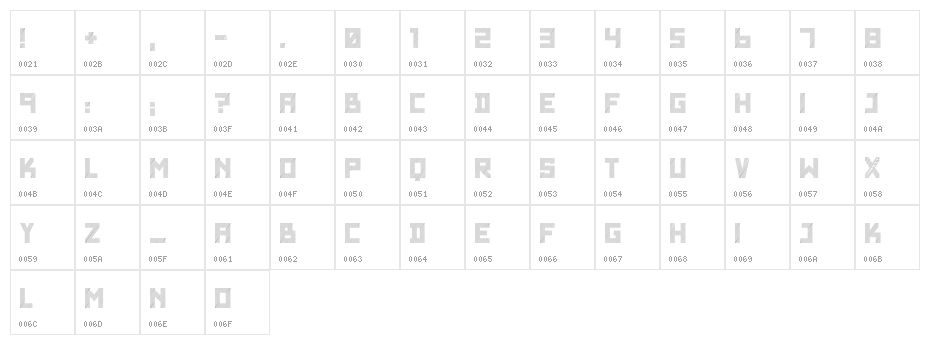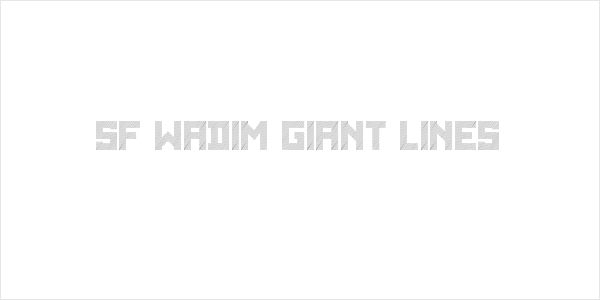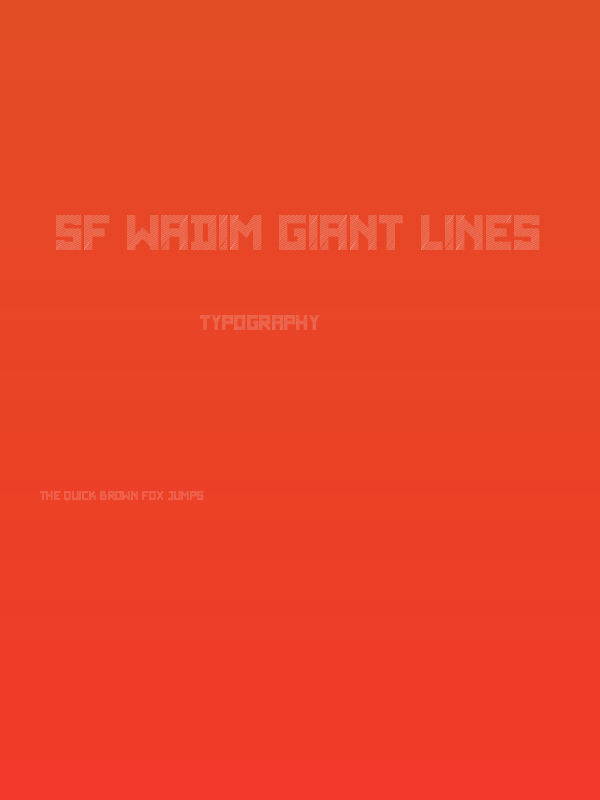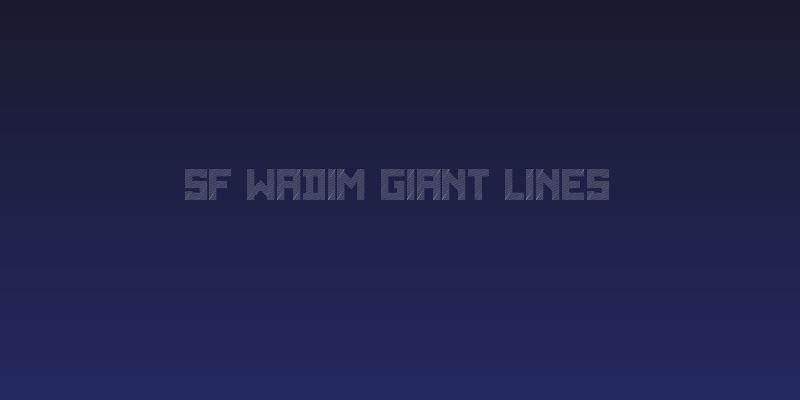
SF WADIM GIANT LINES Font
SF WADIM GIANT LINES Description
This font features a bold, geometric design with a distinct diagonal line pattern filling each character. The uppercase and lowercase letters maintain a consistent blocky structure, creating a sense of uniformity and strength. The numbers and special characters follow the same design principles, ensuring a cohesive look across all glyphs. The diagonal lines add a unique texture, making the font stand out in any design. Its modern and industrial feel makes it suitable for projects that require a strong visual impact.
Proposed ProjectsIdeal for posters, branding, and any design requiring a strong, modern aesthetic.